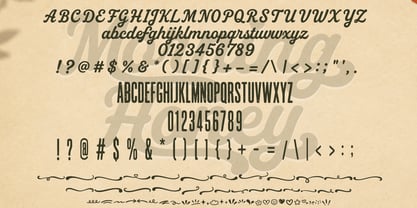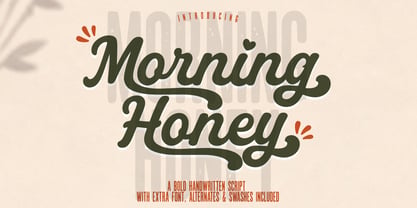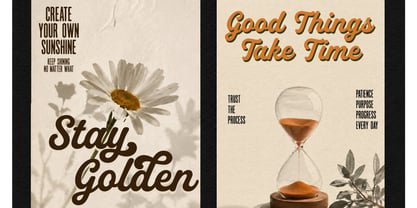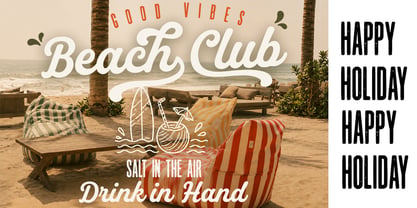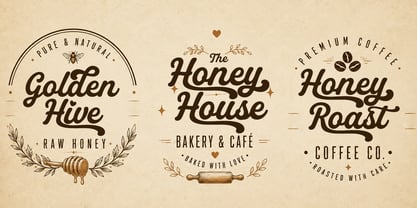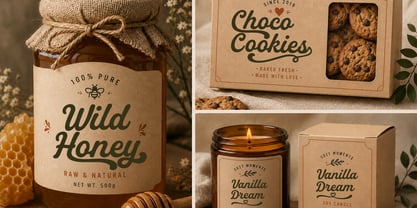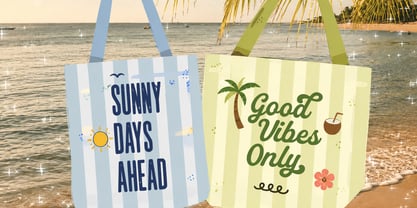
Morning Honey
La famille de polices Morning Honey a été conçue par Muhammad Zaini et publiée par Cocodesign. Morning Honey contient 3 styles et options de package familial. En savoir plus sur cette famille
Morning Honey is a bold handwritten script font that exudes a warm, playful, and natural character. Featuring smooth curves, rounded strokes, and flowing swashes, it delivers an inviting handcrafted appearance that is perfect for a variety of creative projects. Its bold style ensures excellent readability while preserving an authentic handwritten feel. Ideal for branding, packaging, logos, social media, apparel, and printable designs, Morning Honey adds a charming and friendly touch to every composition. With an array of stylish alternates and decorative swashes, this font simplifies the creation of unique lettering and eye-catching typography, making it an essential choice for designers seeking to enhance their work with minimal effort.